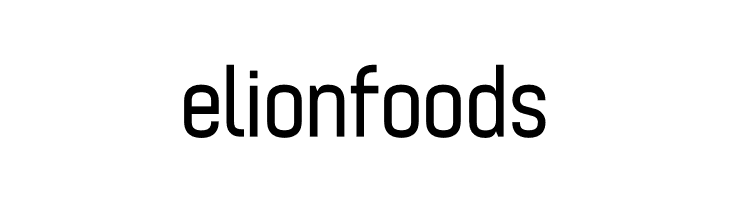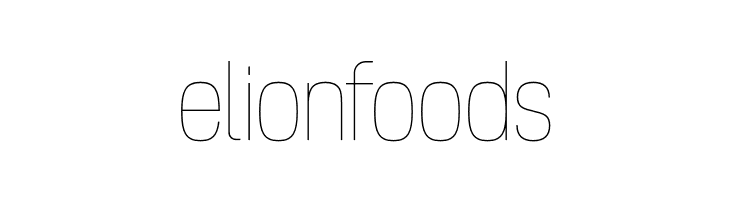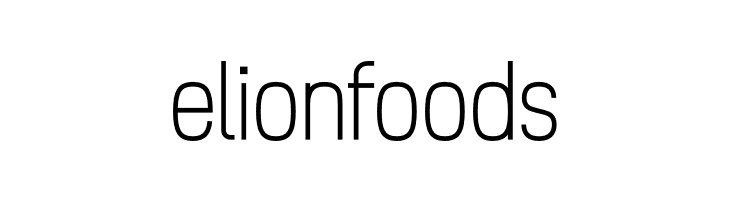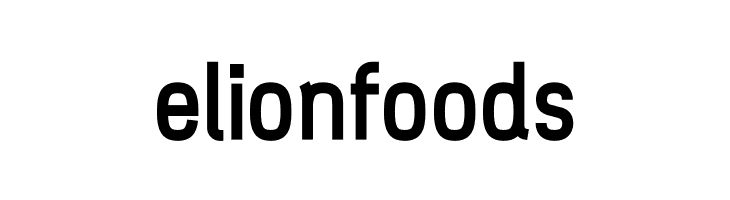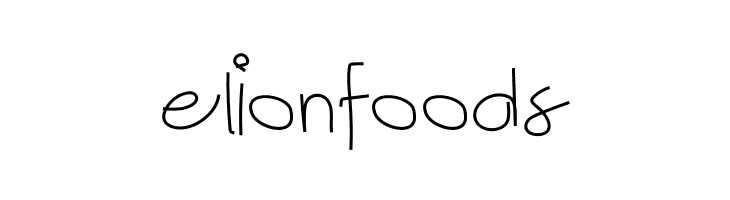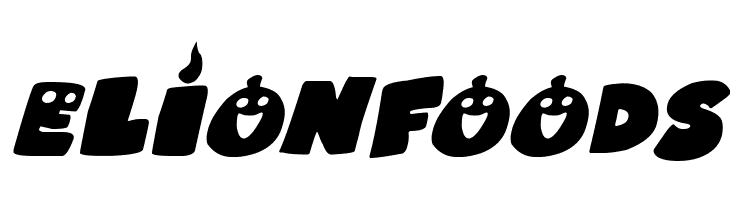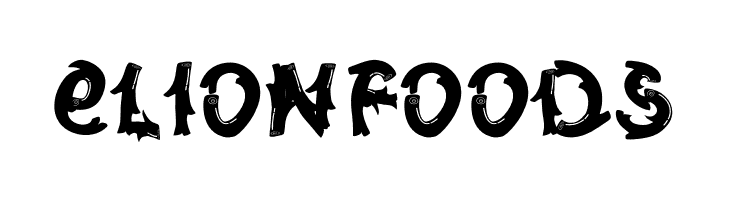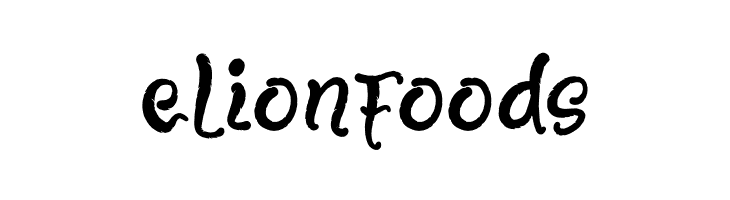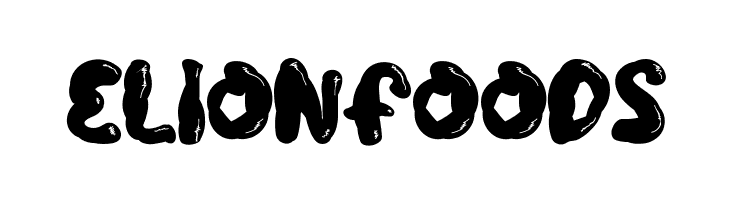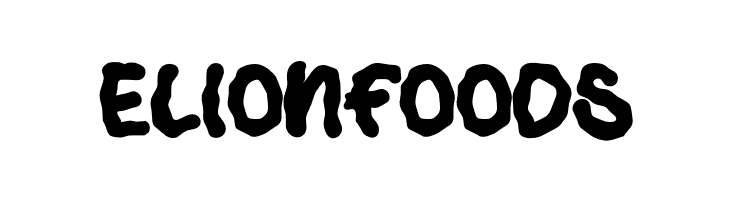
A playful handwritten font with a whimsical and casual style.
( Fonts by Goodrichees )
A whimsical, eerie font with jagged edges and playful curls, perfect for Halloween themes.
( Fonts by Storytype Studio )
A bold, playful font with a spooky, hand-drawn appearance.
( Fonts by Kong Font )
A bold, brush-style font with dynamic and artistic flair.
( Fonts by Hawtpixel )
A bold, Halloween-themed decorative font with playful, spooky elements.
( Fonts by Hawtpixel )
A bold, Halloween-themed font with playful, spooky elements and an italicized slant.
( Fonts by Lettersweet Studio )
A bold, jagged font with a spooky, horror-inspired design.
( Fonts by Tokokoo Studio )
A bold, horror-themed font with jagged, dripping characters.
A wild, edgy font with sharp, hand-drawn strokes and a raw, expressive style.
( Fonts by Pinisiart )
A bold, angular font with sharp edges and a dynamic, adventurous style.
( Fonts by Masa Aska Sanurumi )
A playful, sketch-like font with a ghostly and whimsical appearance.
( Fonts by Annisa Afni )
A spooky, tombstone-themed font with a playful, hand-drawn style.
( Fonts by Dharmas Studio )
A bold, hand-drawn font with a spooky, horror-inspired style.
( Fonts by Tokokoo Studio )
A whimsical, hand-drawn font with dynamic strokes and a magical feel.
( Fonts by Mr.Soon Design )
A bold, jagged font with a rugged, carved appearance.
( ZF2334 After a Rain is a display, geometric and condensed sans-serif font. It comes with a monoline width except for some connecting strokes. This font comes in a single style and includes a multilangual character set. License : Zed Fonts 2334 dedicates )
A modern, elegant font with balanced characters and clear readability.
A clean, simple font with consistent strokes and balanced spacing.
( Updated : Multilingual support has been added; The Italic style has been removed as it looks too weird; 2 styles have been added : Light and Hairline. ZF2334 Squarish is a condensed monoline sans-serif font. It is similar to Helvetica Condensed. Lice )
A geometric, modern font with a squarish design and consistent structure.
( Updated : Multilingual support has been added; The Italic style has been removed as it looks too weird; 2 styles have been added : Light and Hairline. ZF2334 Squarish is a condensed monoline sans-serif font. It is similar to Helvetica Condensed. Lice )
A bold, geometric font with a squarish design, ideal for modern and impactful projects.
( Updated : Multilingual support has been added; The Italic style has been removed as it looks too weird; 2 styles have been added : Light and Hairline. ZF2334 Squarish is a condensed monoline sans-serif font. It is similar to Helvetica Condensed. Lice )
A geometric, hairline font with squared edges and a modern, minimalistic style.
( Updated : Multilingual support has been added; The Italic style has been removed as it looks too weird; 2 styles have been added : Light and Hairline. ZF2334 Squarish is a condensed monoline sans-serif font. It is similar to Helvetica Condensed. Lice )
A modern, squarish font with a light weight and geometric structure.
( Updated : Multilingual support has been added aswell as 3 more styles. ZF2334 That's All Right is a low contrast condensed sans-serif font. It is a bit geometric and somewhat similar to DIN and Frutiger. The 3 first styles are monoline except for some c )
A bold, modern font with thick strokes and a strong presence.
( Updated : Multilingual support has been added aswell as 3 more styles. ZF2334 That's All Right is a low contrast condensed sans-serif font. It is a bit geometric and somewhat similar to DIN and Frutiger. The 3 first styles are monoline except for some c )
An ultra-thin, modern font with a minimalist and elegant design.
( Updated : Multilingual support has been added aswell as 3 more styles. ZF2334 That's All Right is a low contrast condensed sans-serif font. It is a bit geometric and somewhat similar to DIN and Frutiger. The 3 first styles are monoline except for some c )
A modern, light-weight font with clean lines and balanced proportions.